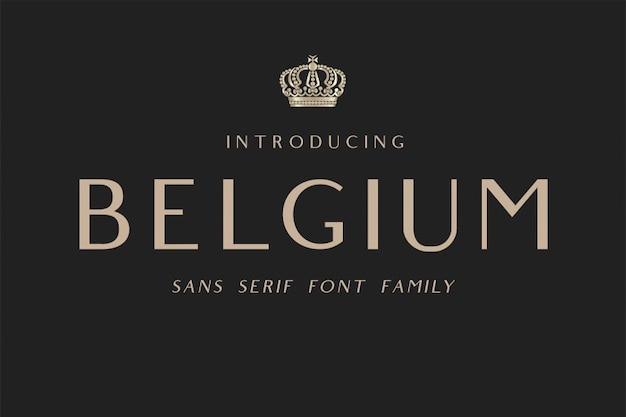
Belgium Font
It is the epitome of classic simplicity and luxury. Its timeless design exudes sophistication and elegance, making it a perfect choice for projects that demand a touch of refinement. Each character is beautifully crafted, ensuring a clean and luxurious appearance. Whether used in print or digital media, "Belgium" effortlessly elevates any design to a higher level of class and elegance.
Belgium Regular (400)
Belgium Regular (Italic) (400)